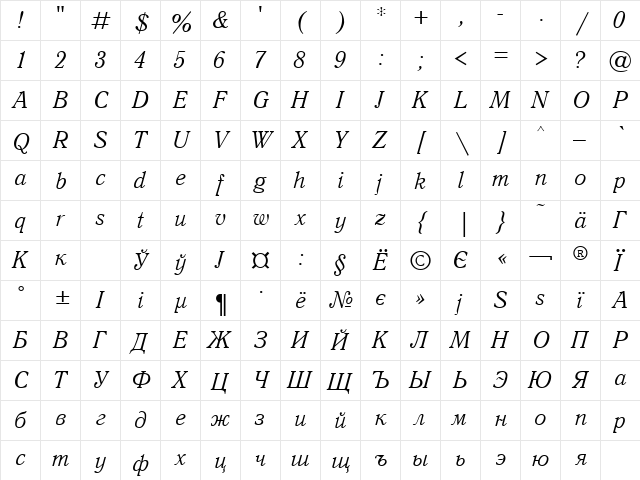
Antiqua Italic Cyrillic@ Font Preview
Antiqua Italic Cyrillic@
Design Context for Antiqua Typeface
Antiqua is a composed and adaptable typeface that performs quietly and consistently across a wide range of design contexts. Its italic angle brings a sense of urgency and motion to the letterforms.
Pro Tip: Try Antiqua for annotation and caption copy alongside an upright companion — the contrast in angle creates a dynamic but ordered typographic system.